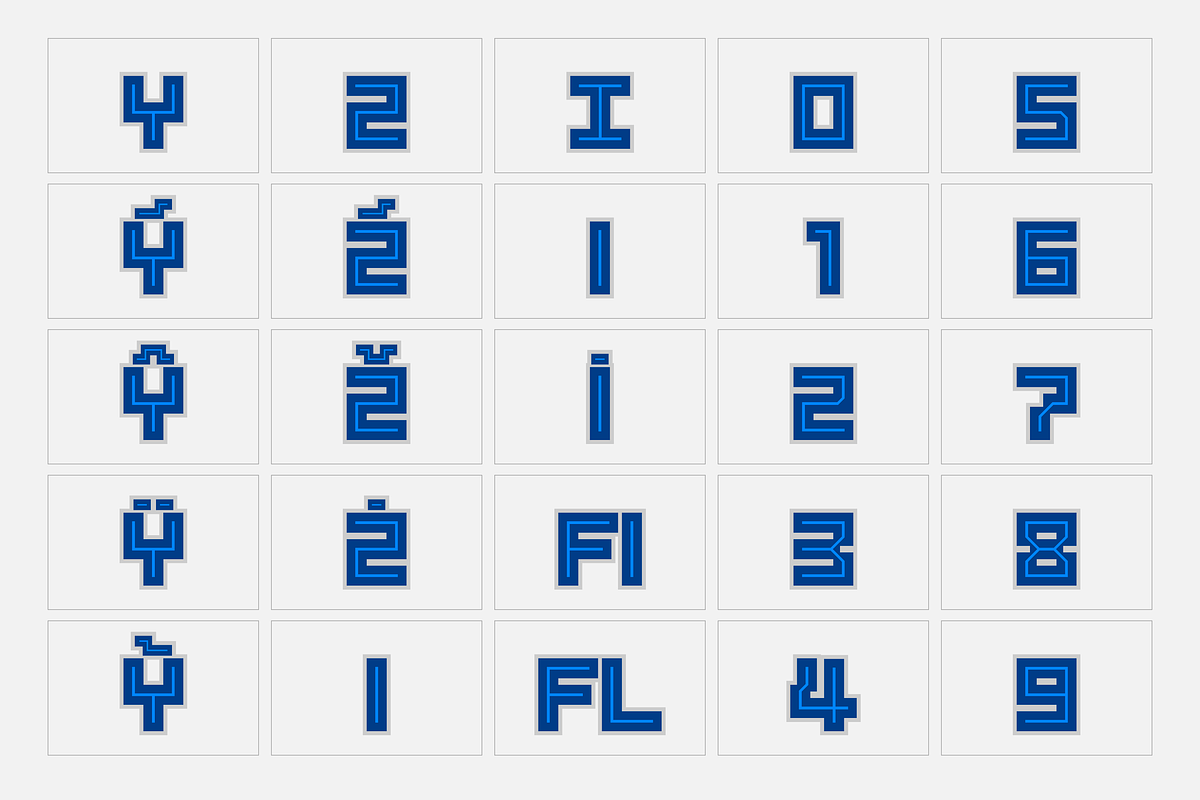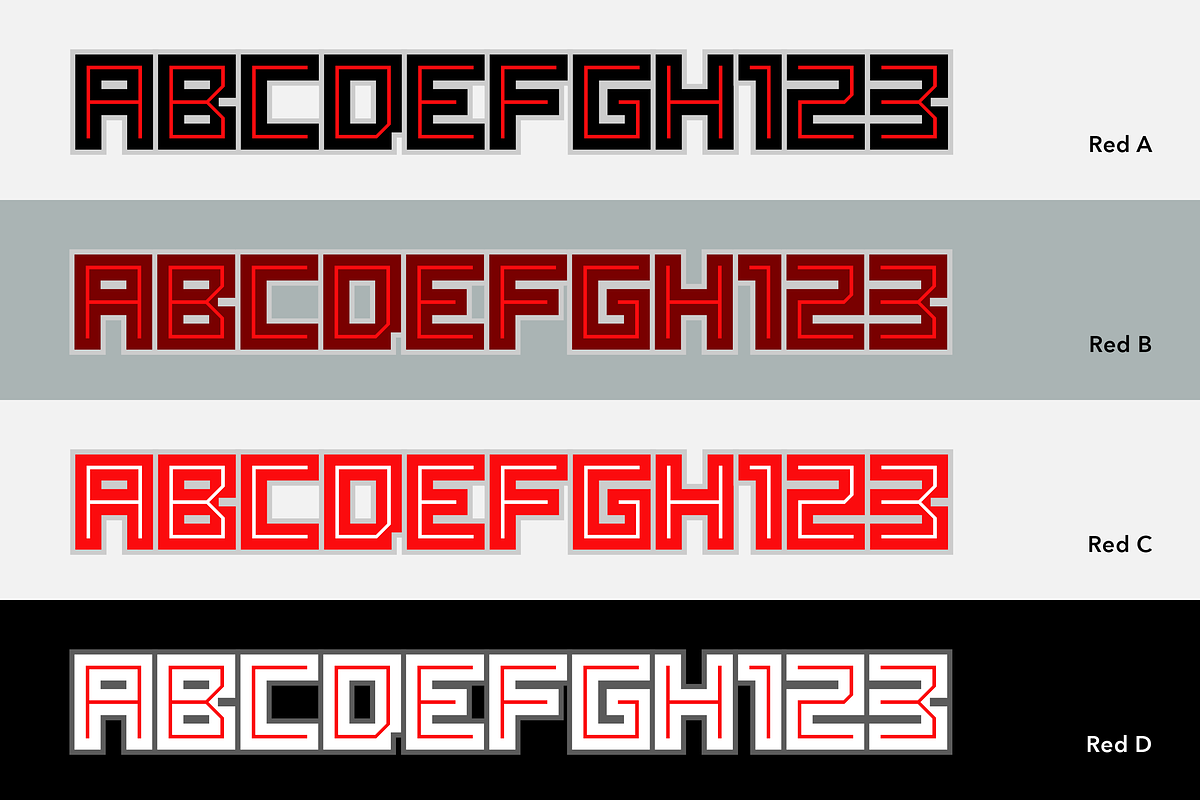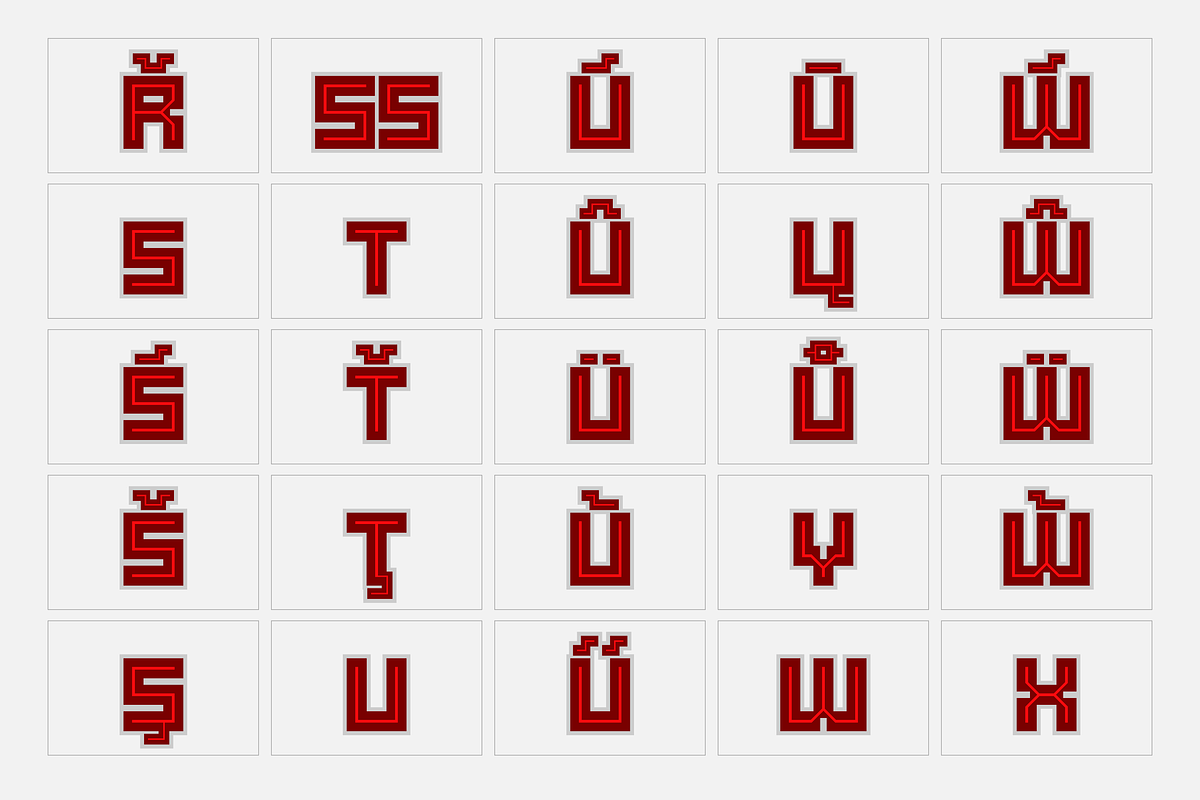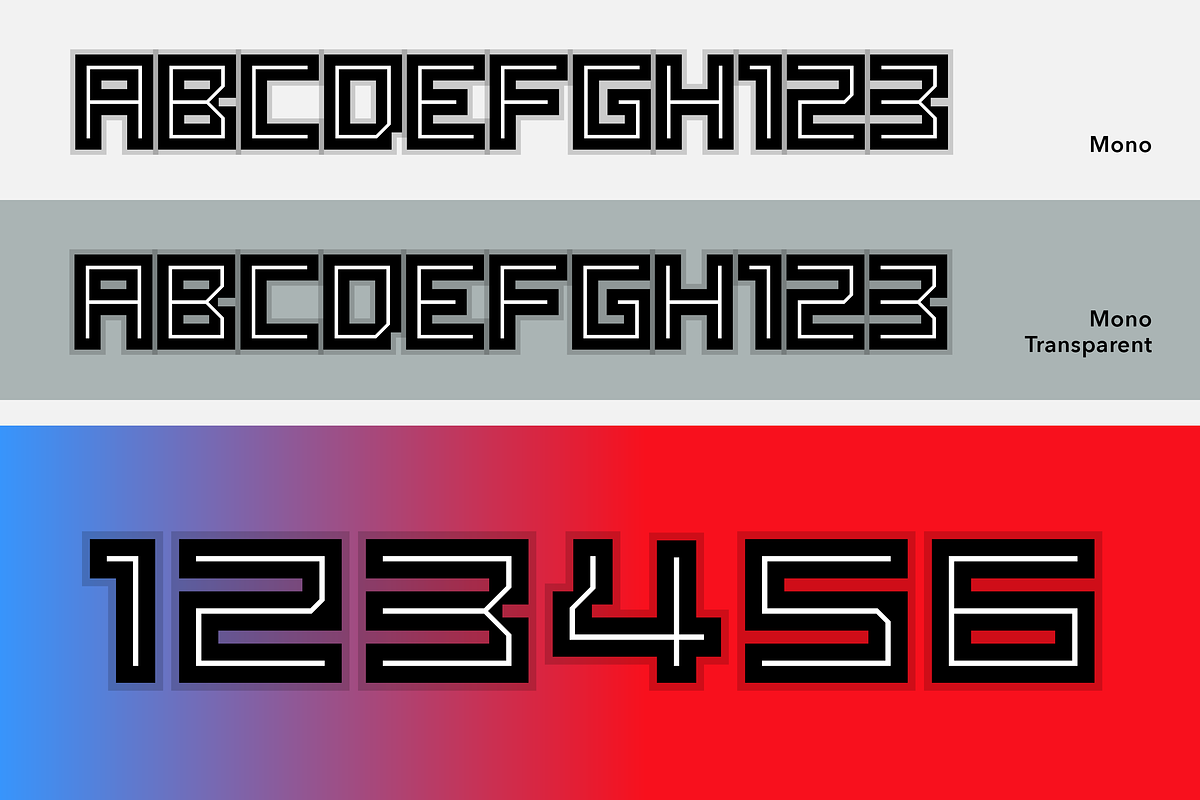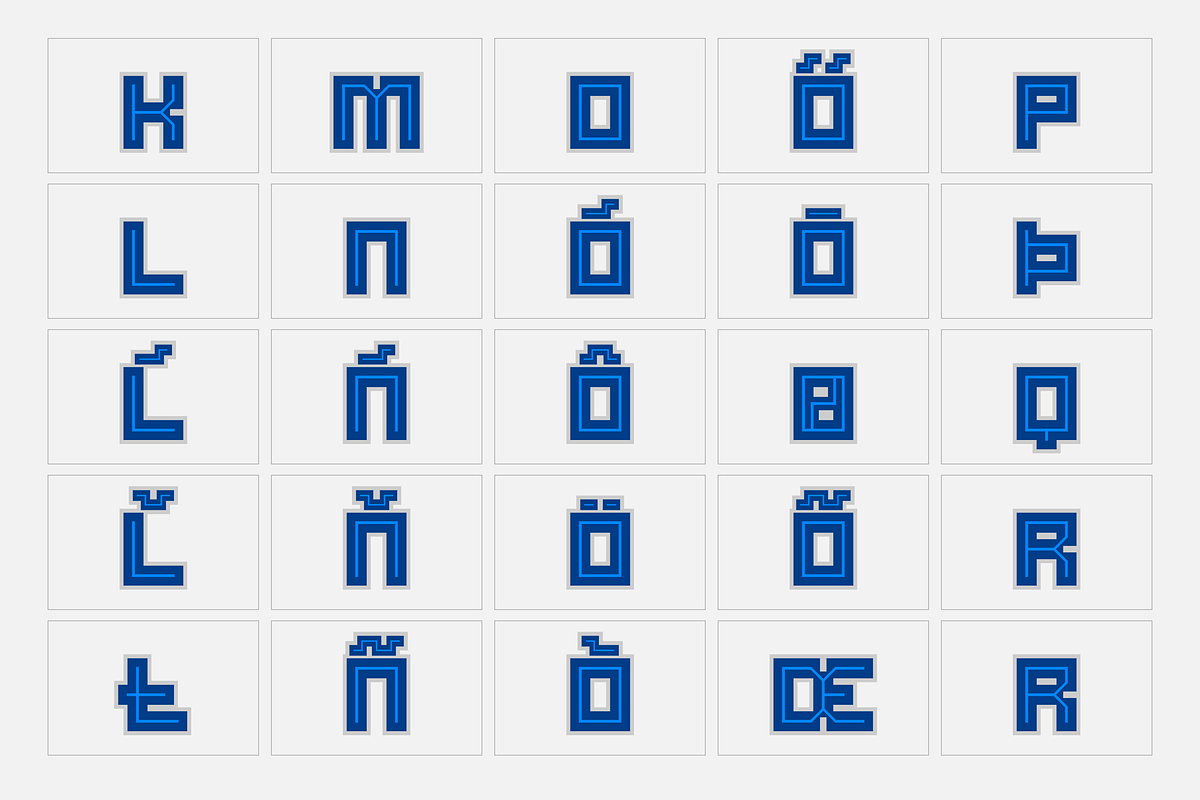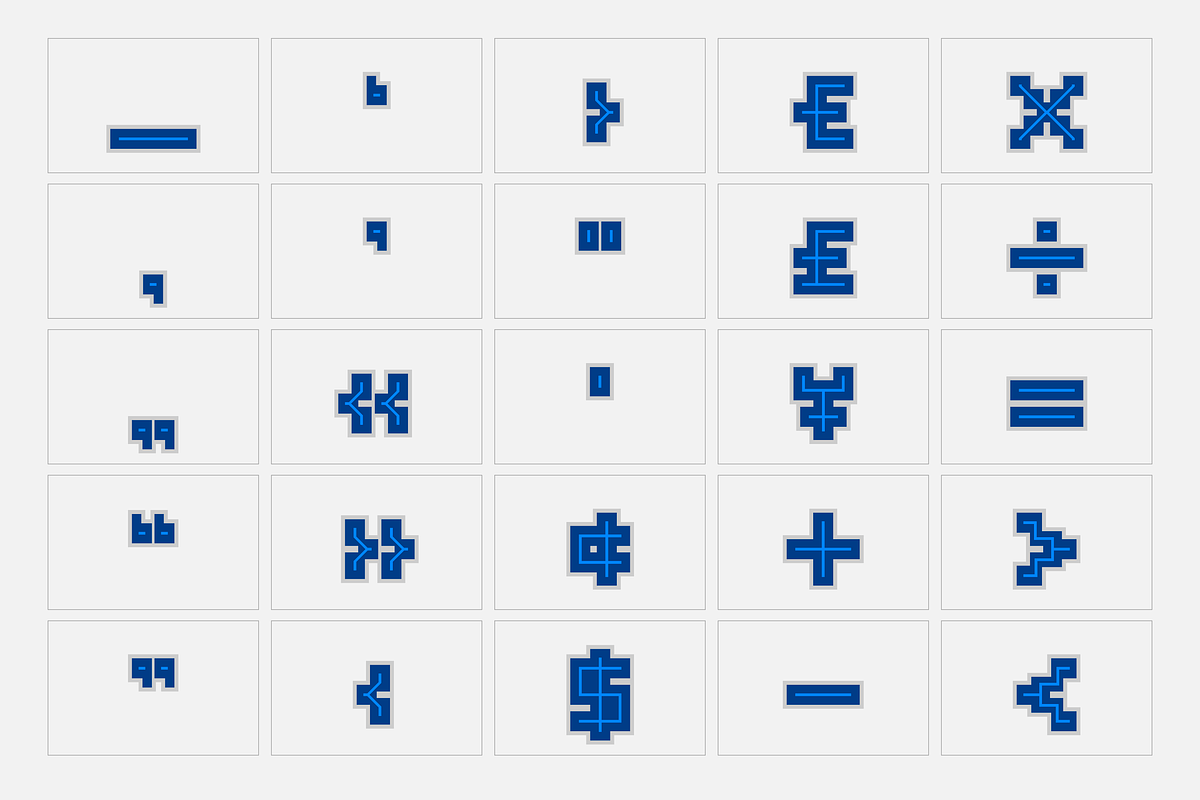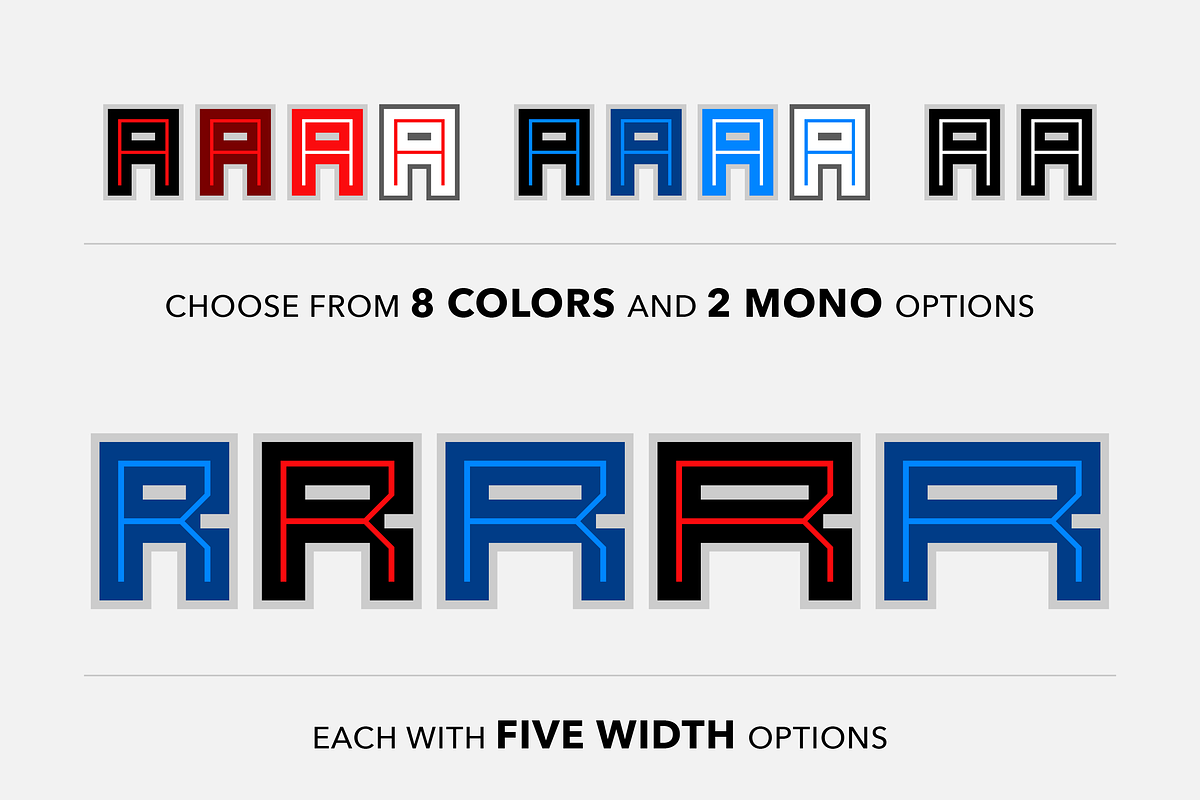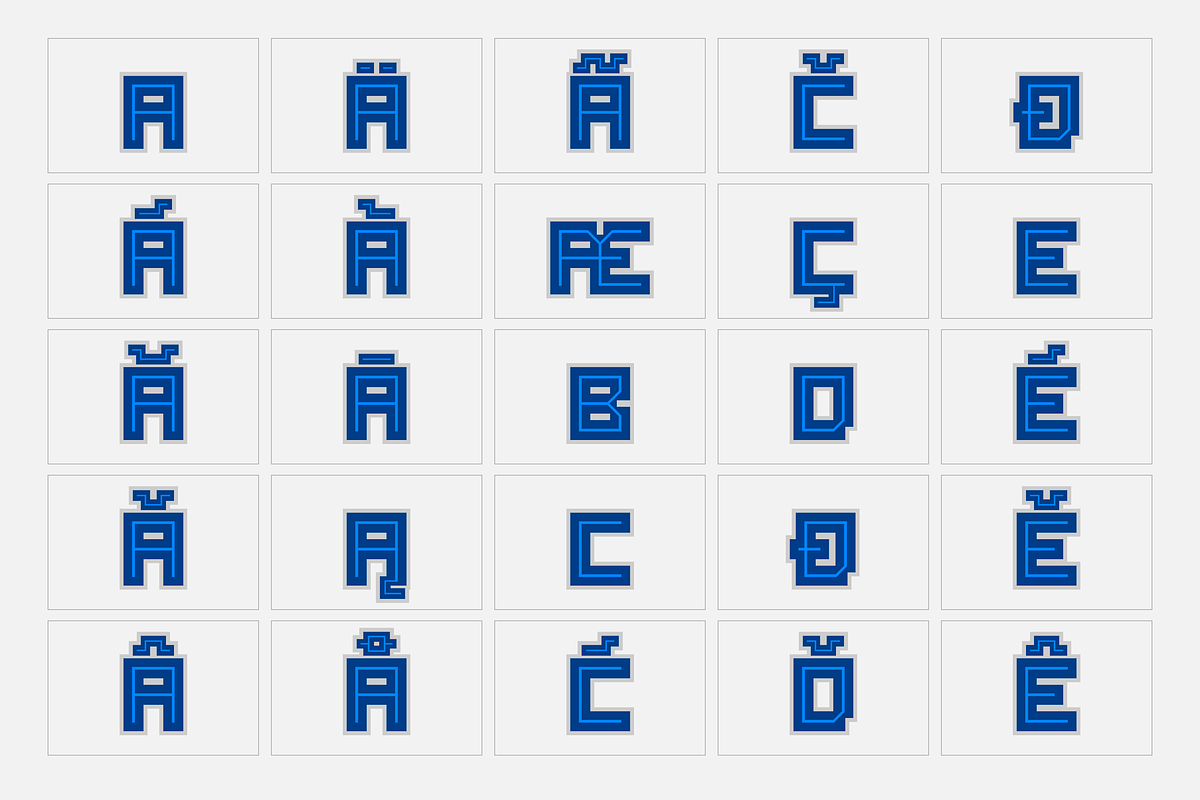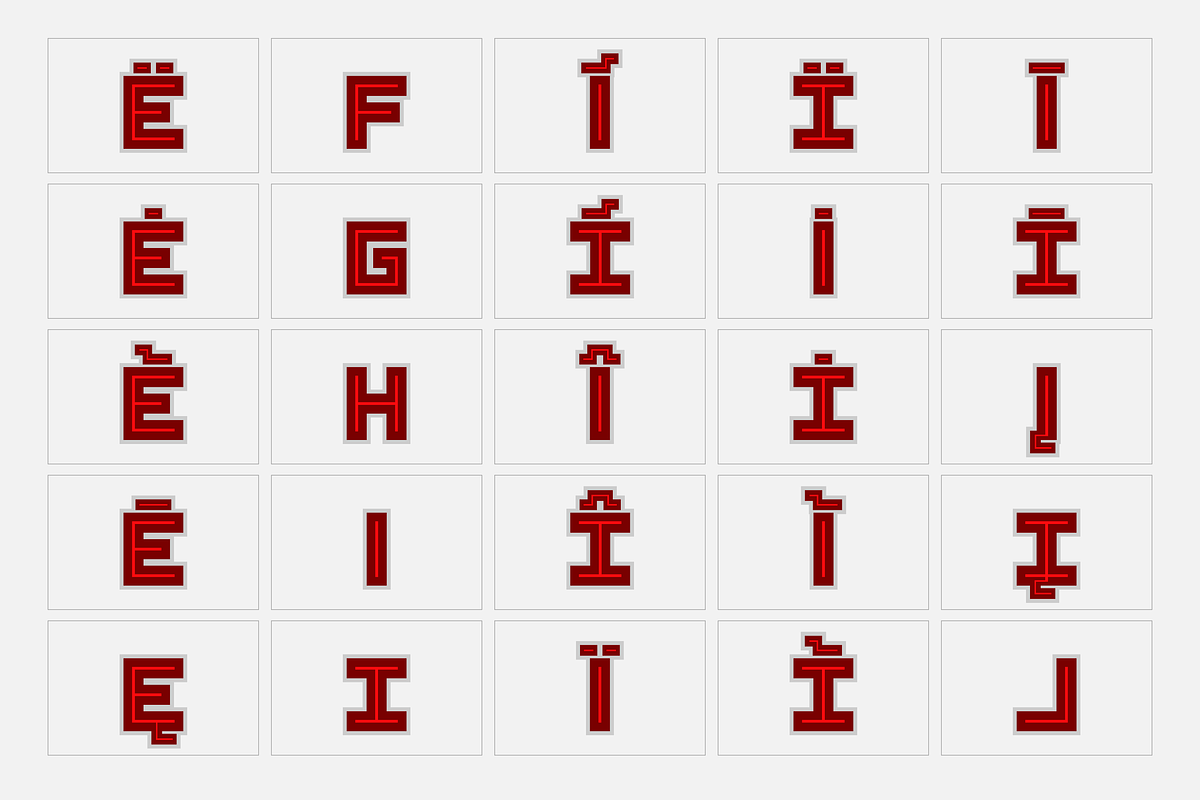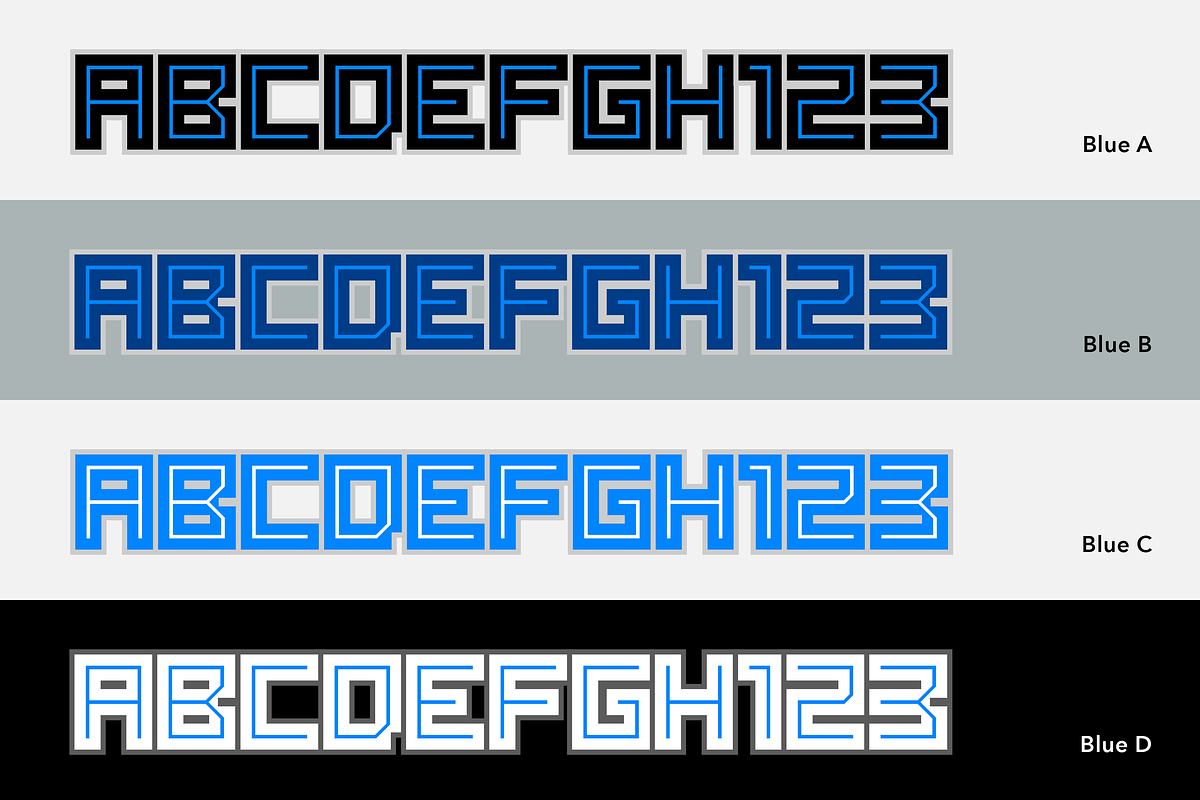
SB Raster Color - SVG Color Font
- 8x colourways: 4x Red, 4x Blue.
- 2x mono versions: Mono and a Mono Transparent version featuring a transparent shadow.
SB Raster is a blocky, bold, rectangular typeface with square pixellated corner details reminiscent of early videogame graphics. SB Raster has a strong retro flavour and works well at large sizes and in strong colours alongside similarly strong, geometric graphics.
This is the SVG Color Font version of SB Raster, containing 50 font files covering 10 colour ways and 5 widths. Each font contains 219 glyphs. NOTE: Custom colours are available on request.
This capitals-only typeface started life as an extended pixelfont but as the design developed, it morphed into something with a more retro-digital arcade feel. The resulting typeface is well suited to anything related to retro computing, 8-bit consoles and game graphics. Its heavy, wide letterforms give it impact and it is best suited to display and headline use, perhaps on posters or as part of a logo.